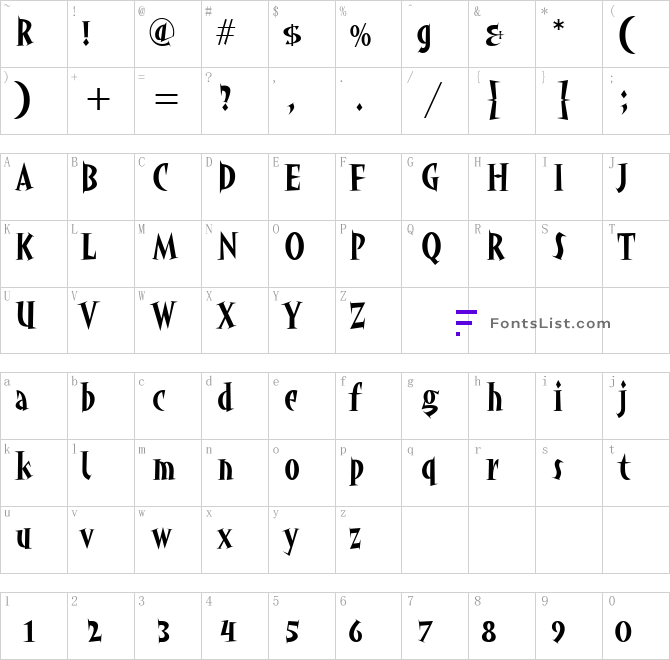
- Font Name:AngryhogITC TT
AngryhogITC-TT.ttf is a very beautiful artistic font, AngryhogITC-TT.ttf is widely used in the design and printing of various books and pictures,AngryhogITC-TT.ttf has a strong visual impact,AngryhogITC-TT.ttf is a commonly used font in newspapers, magazines and books, and is used in posters, e-commerce Poster design, store design, logo design, font design and other fields.AngryhogITC-TT.